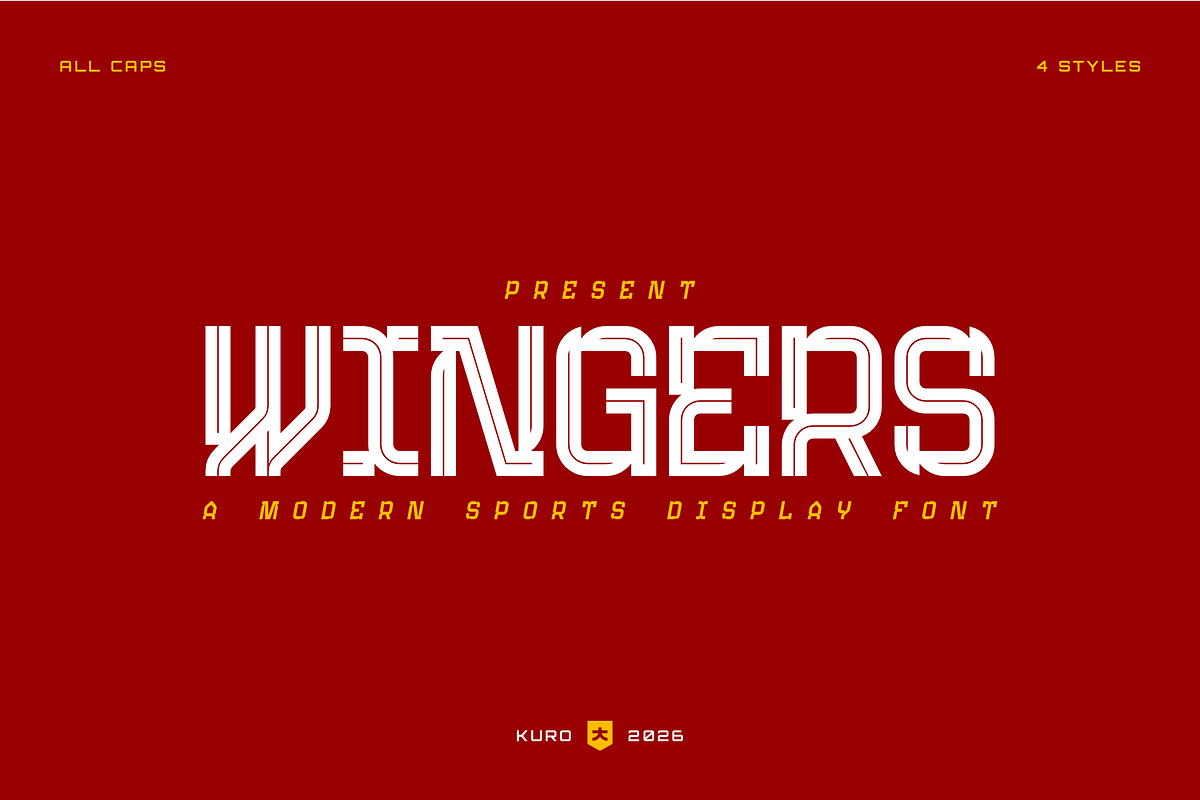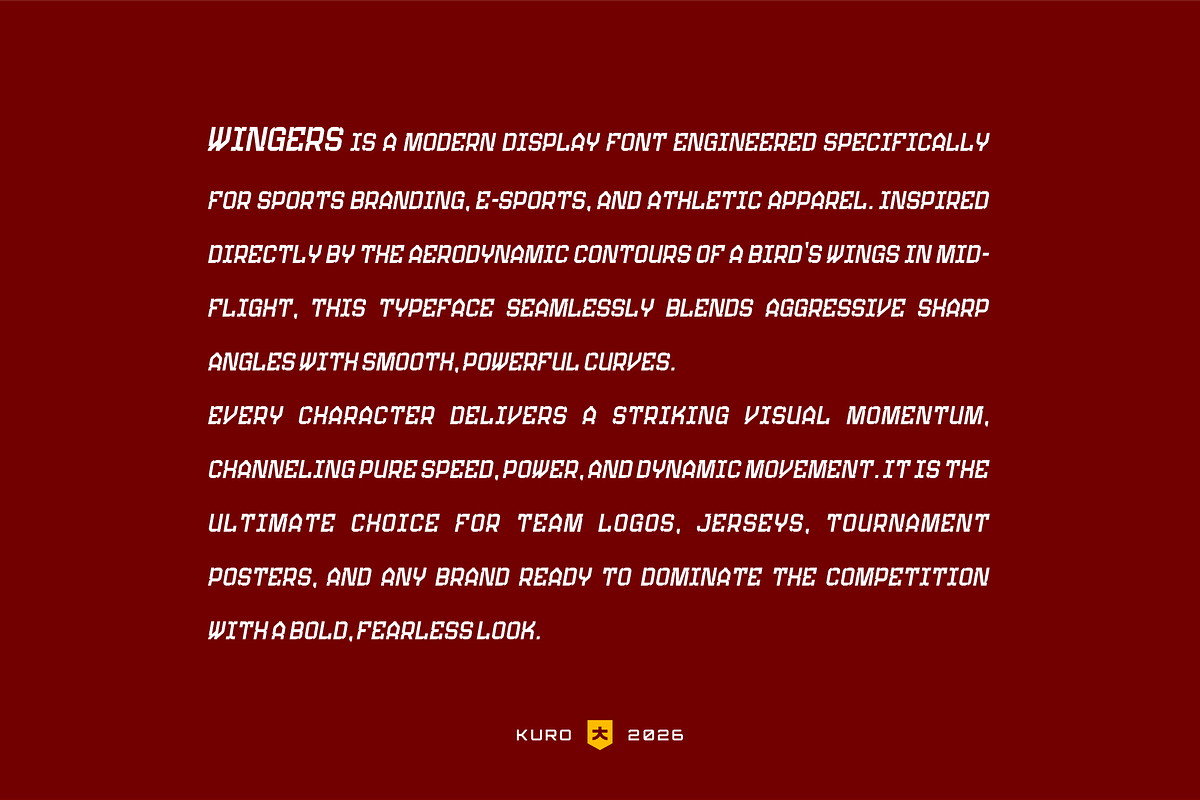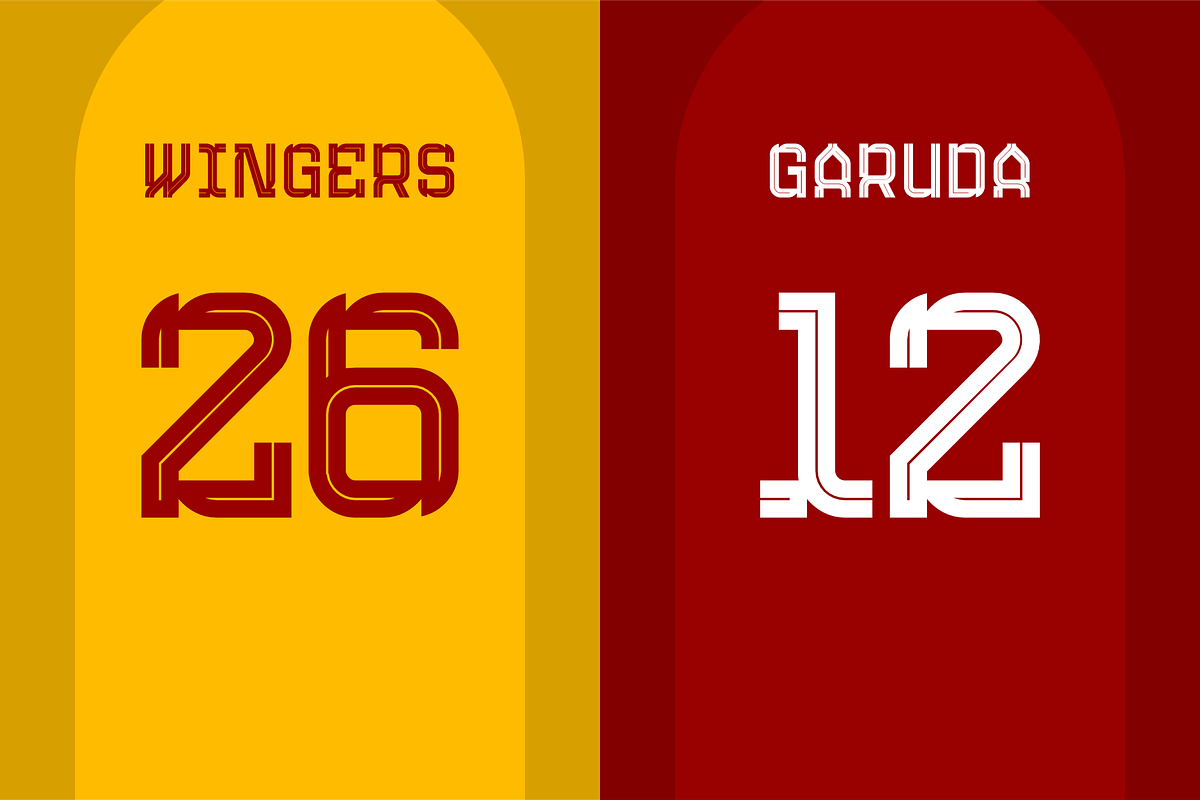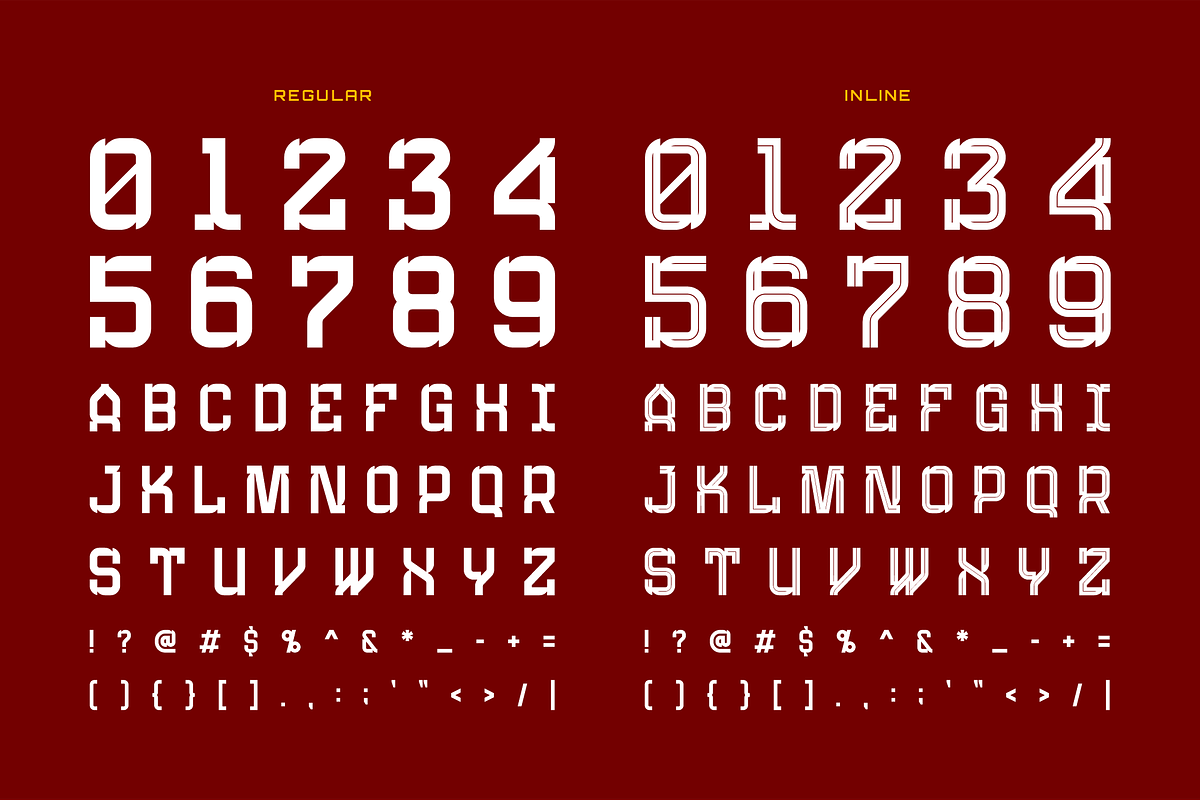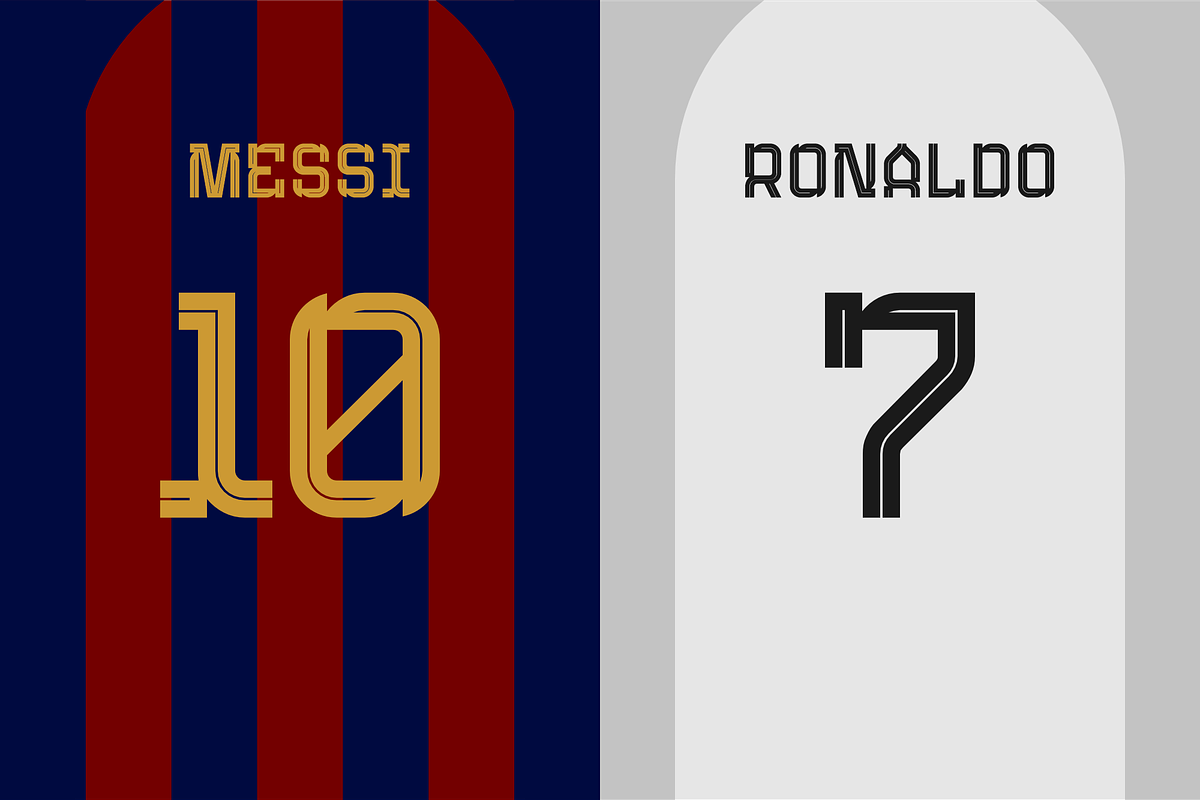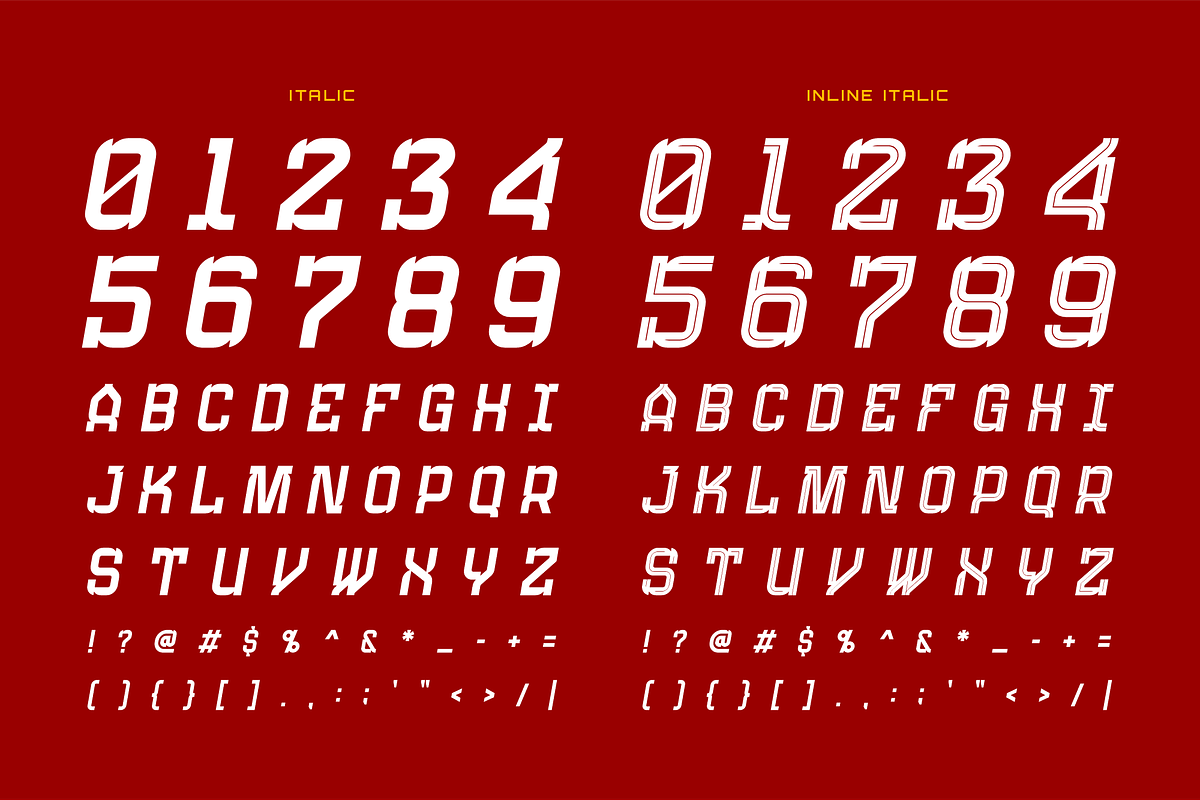
Wingers
Wingers is a modern display font engineered specifically for sports branding, e-sports, and athletic apparel. Inspired directly by the aerodynamic contours of a bird’s wings in mid-flight, this typeface seamlessly blends aggressive sharp angles with smooth, powerful curves.
Every character delivers a striking visual momentum, channeling pure speed, power, and dynamic movement. It is the ultimate choice for team logos, jerseys, tournament posters, and any brand ready to dominate the competition with a bold, fearless look.